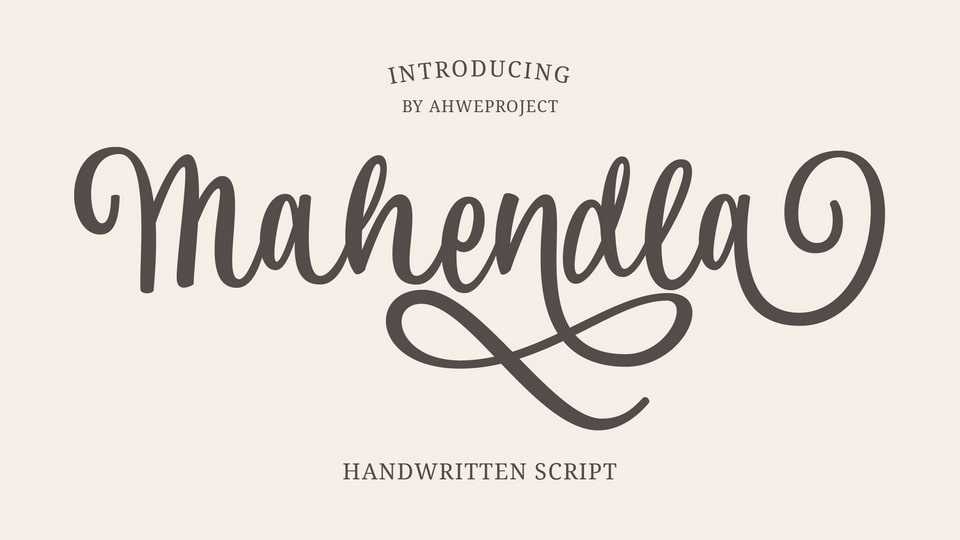
Download Mahendla font, a delicate, elegant, and flowing handwritten typeface. It has beautiful and well-balanced characters and as a result, it matches a wide pool of designs